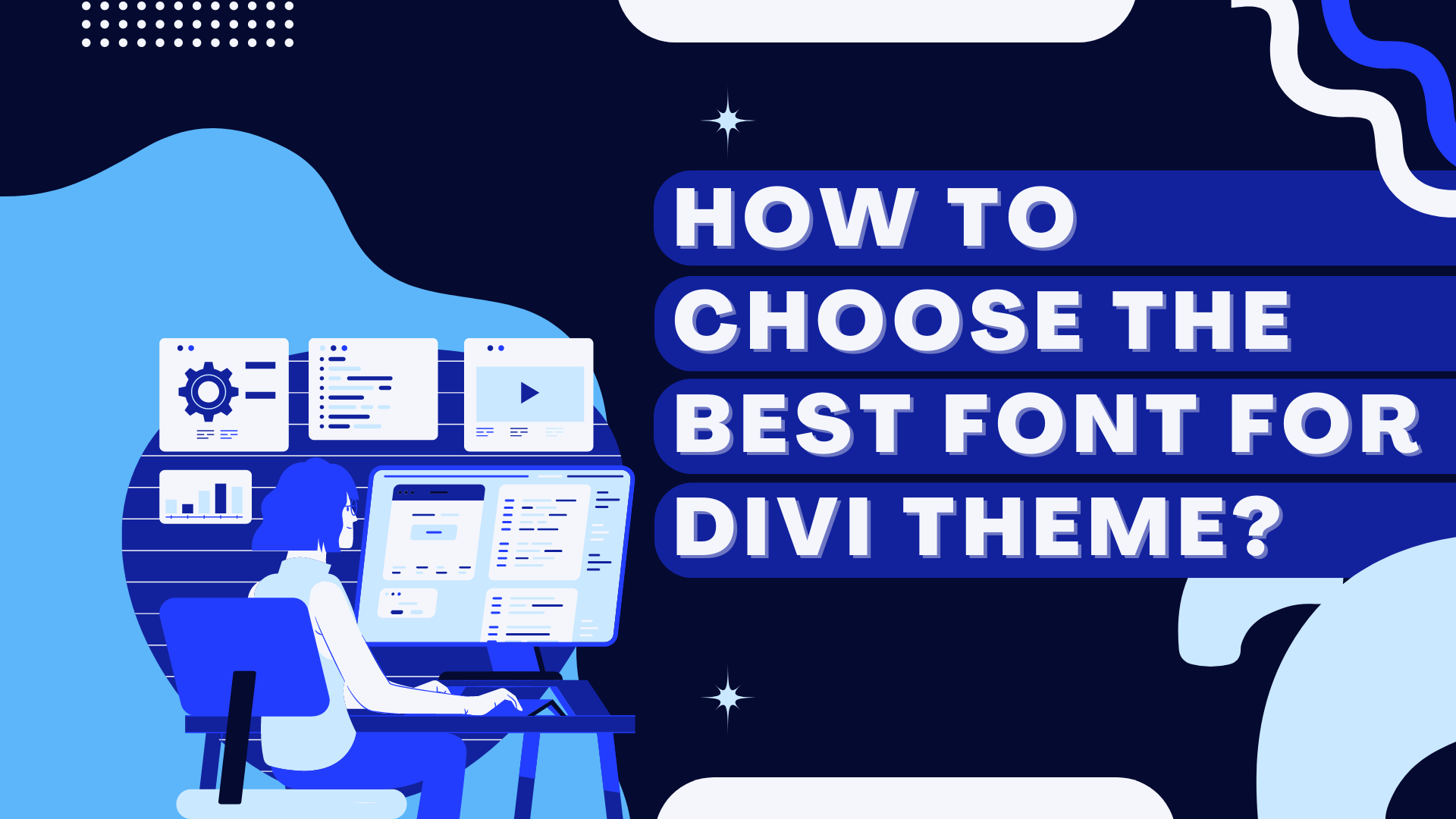
How to Choose the Best Font for Divi Theme
Designing websites is not a matter of seconds as you have to look for different factors before coming up with a well-designed and worth appreciating site. Divi theme is an ultimate design framework that lets you begin working from scratch so that you get what you require. Choosing a best font for Divi theme is a very critical thing to think before you start customizing your website.
People who have ever designed a website or are currently going through the process know the struggle behind this work. From choosing the framework to selecting the perfect fonts, it takes a whole thought processing work.
The success of your website somehow depends on the selection of fonts so you should consider them wisely that perfectly match the content you have published.
If you are searching for a perfect font selection for your website but don’t know which features need to be considered for this purpose, this article will solely help you out. Let’s get started.
Importance of Fonts Selection
Have you ever thought about why the success of your website depends on your selection of fonts? Why do they play such a huge role in making your website to the next level? You might not know but each font defines a specific mood and if you fail to display that mood to the readers, your site will be a big no from them. Hence, choosing the right kind of font according to the context is vital and should never be taken for granted.
There is also an important factor in the success of your site that is linked to fonts i.e readability. The better the fonts, the better the readability score will be. All these factors combine to make your site a huge success. Aren’t you curious to know those essential points that make the selection of fonts easier? Let’s go.
Choosing the Right Font for Divi Theme
The points you should look for in this process are.
1- Font with Right Emotions
The font that is able to give the right kind of messaging is crucial. Everyone prefers a different kind of niche for their site so choosing a font that matches that context is all that you need to make your site a big hit. For instance, if you have an art website, you can go for a calibri font family that depicts elegance, warmth, etc.
If you have designed an educational website but used the wrong font, it won’t be able to convey the same feel so better choose the font after deep analysis. Different Serif and Sans-serif fonts are available from which you can easily find your required one.
2- Limit the Font Numbers
Have you ever seen a website or an article that has various fonts and it has immediately turned you off? Yes, it is one of the common mistakes people often make to enhance the importance of content but resulting in losing a maximum number of followers. Each font has its importance or value so choosing 2 or hardly 3 fonts with the highest value can automatically increase the importance of your content.
Sticking to 3 fonts would be great as one can be used as a primary font, one as a secondary, and the third one as an optional. The most important among all is the primary so ensure the font you choose for this purpose should have the top-most value. In order to write the paragraphs, you choose the secondary font so it should be unique and extraordinary and above all understandable so that the reader clearly knows what you are trying to convey.
These are the little details that make a huge difference so never take any point for granted.
3- Learn the Basics of Typography
In order to start anything new one must know the basics so that they work in a better way. If you know the basics of fonts it will be easy for you to decide on the best and right font for your website. Among so many options it often becomes tough to go for the right one but if you have proper knowledge, the selection becomes easy.
For instance, if you have selected a calibri font, you must be familiar with the usage of this font. Similarly, it is important to know the purpose of using Universe font. If your website gives classical vibes, better stick to serif fonts because they are known to be used for this purpose but if your website has a modern touch, sans-serif fonts are the best option.
Keep all these points in mind if you want to make an accurate choice in the future.
4- Be cautious about the loading time
Isn’t it irritating when you click a site and it keeps loading? Nothing can be more frustrating than this. Do you know that this issue can lead to losing a lot of followers? In today’s age, everyone is busy and no one has free time to wait for a site to load. Hence, ensure the font doesn’t take a lot of time in loading.
To avoid this problem, do not overload your site with a lot of fonts. Moreover, always download the languages you use as it will help you maintain the loading speed of your website.
5- Make a perfect combination of fonts
Another most important part is to pay special consideration to make a perfect font combination. Each font has a specific mood and each one is used for different reasons so choosing two fonts depicting entirely different moods can make everything mess up. However, in a few cases, this combination works out.
You can combine blunt fonts with natural ones or mixing serif and sans-serif fonts is also a great idea. However, this combination might create confusion in your mind so the simplest way is to combine 2 fonts from the same family. With this method, you can never go wrong.
6- Pick Readable Fonts
Readability is one of the most significant factors when it comes to choosing the best font for your website. If the font you have selected is not readable or the reader is having difficulty understanding the content, your site will be a big no. Hence, always choose the one that is readable, and understandable so that the reader doesn’t switch to another site with disappointment.
Different fonts are available that are neat, clear, and visible so that you can clearly convey the message to the reader you want through your website. A few examples include Aria font, Calibri font, Verdana font, etc.
Conclusion
Choosing the best font for the Deva theme requires a lot of knowledge and keeping in mind a few factors that need to be observed for this purpose. From choosing the readable font to knowing what specific emotion it displays, all these points need to be taken with ultimate consideration so that nothing goes wrong.
This detailed article has all the important points that will help you make your site a big hit. Hence, if you are wondering why you are not getting the right amount of followers or why your current followers are leaving, the selection of fonts might be the reason. After reading this guide, you will be able to make the right choice.
Take notes and get the basic knowledge of typography so that you can get your hands on the fonts that depict clear emotion to the readers.